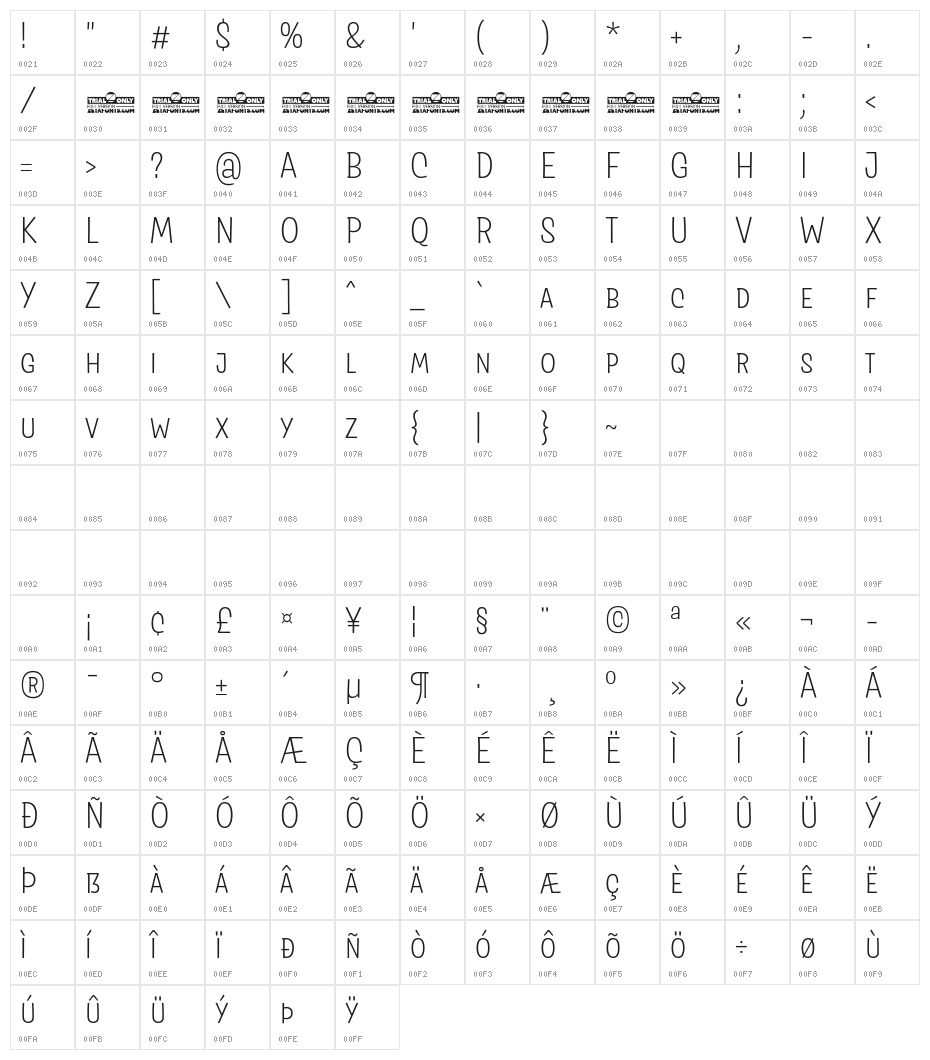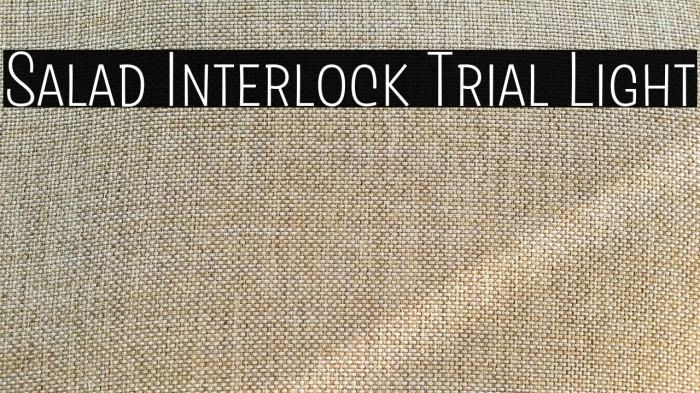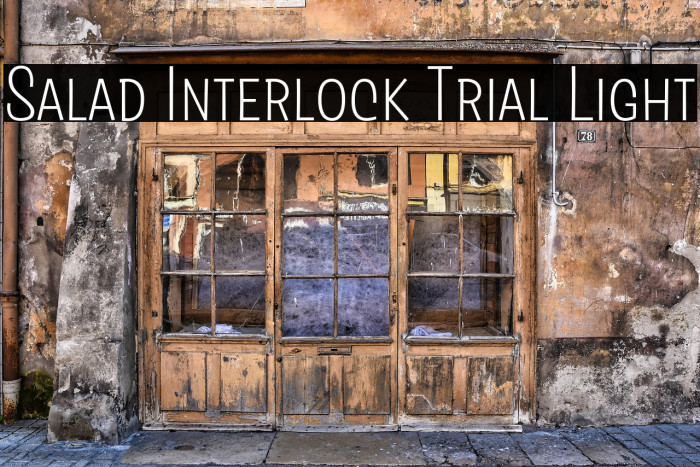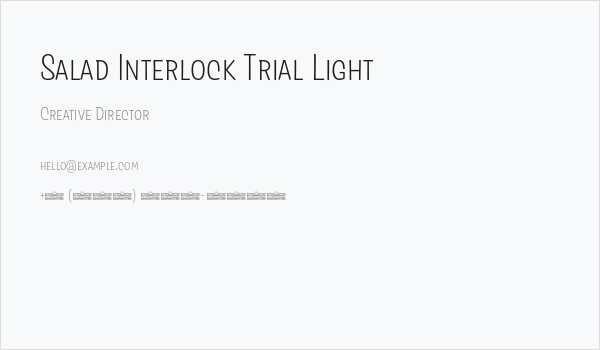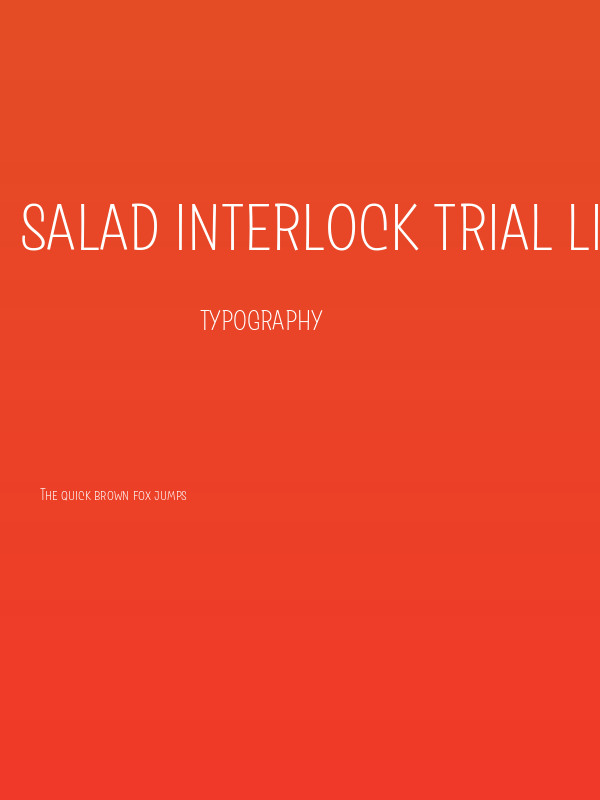
Salad Interlock Trial Light Font
Salad Interlock Trial Light Description
This font features a clean and modern sans-serif style with a light weight, offering a sleek and minimalist appearance. The characters are tall and slightly condensed, providing a contemporary look that is both elegant and functional. The uniform stroke width throughout the characters ensures a consistent and harmonious design. The font includes a full set of uppercase and lowercase letters, numerals, and a variety of special characters, making it versatile for various design needs. Its simplicity and clarity make it suitable for both digital and print media, ensuring readability and aesthetic appeal.
| Proposed Projects | Ideal for branding, editorial design, web design, and minimalist graphic projects. |